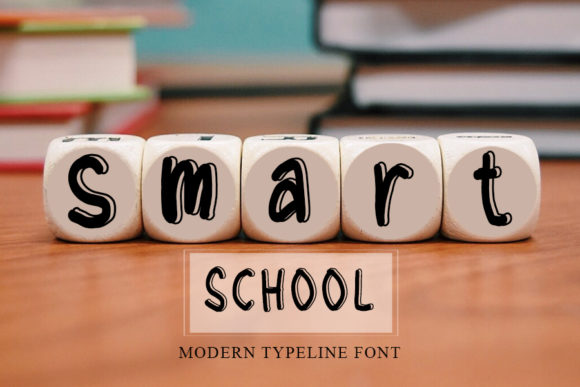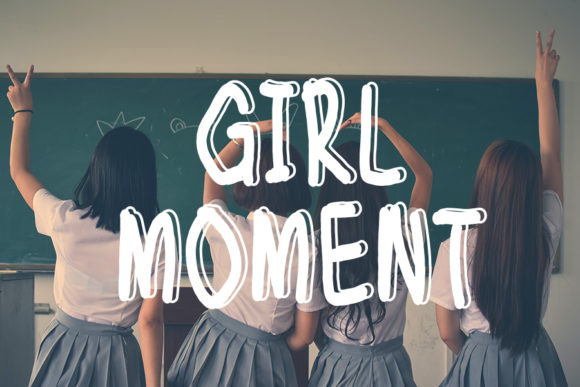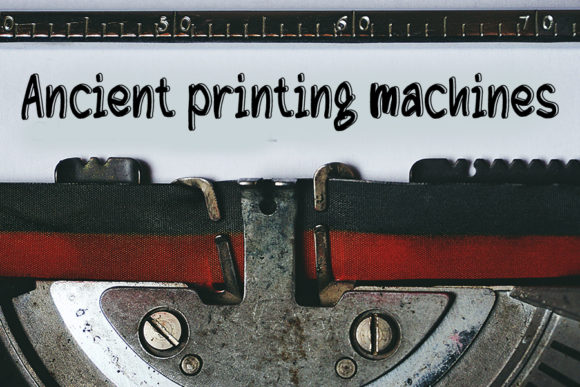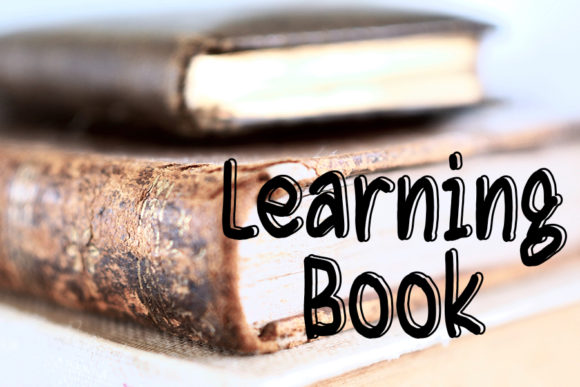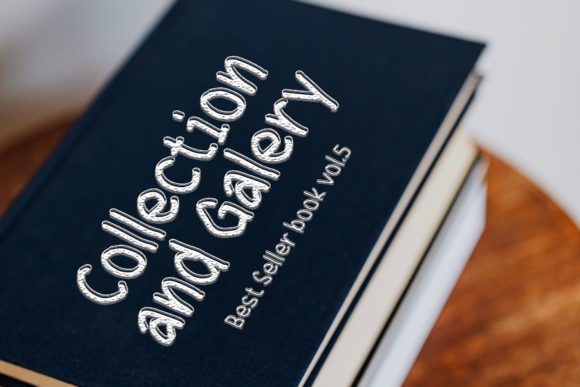
Smart School Font
About Smart School Font
Smart School is a modern and minimalist handwritten font. Friendly and a bit playful, this font will make each of your designs look outstanding!